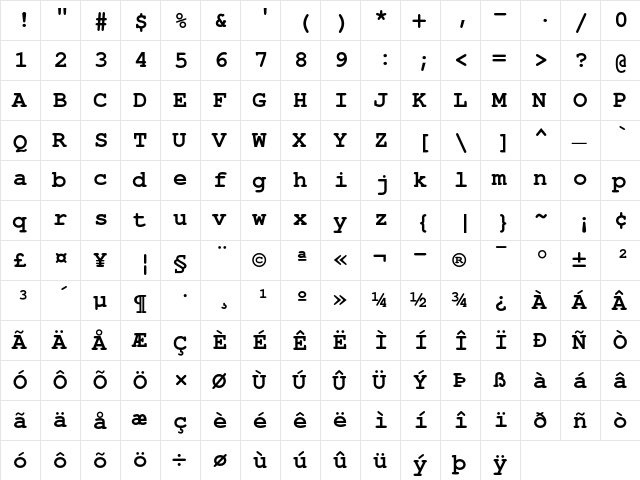
TeX Gyre Cursor Bold
Design Context for TeX Gyre Cursor Typeface
TeX Gyre Cursor is a composed and adaptable typeface that performs quietly and consistently across a wide range of design contexts. Its bold stroke weight gives it real presence on the page.
Pro Tip: Use TeX Gyre Cursor in both headline and body roles to test its range before committing to a single application.